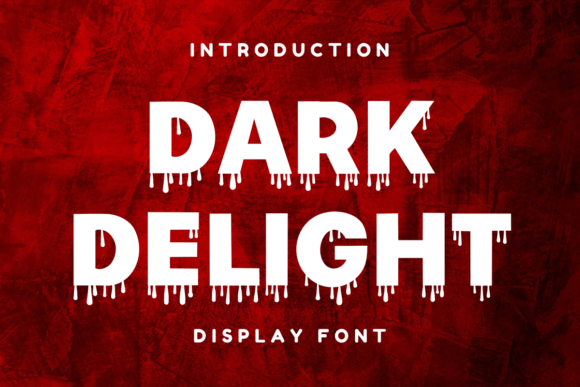
Unleashing the Spooky Charm of Dark Delight Font: Elevate Your Designs with a Touch of Darkness
The world of typography is vast and diverse, offering a multitude of fonts to suit various design needs. Among these, the Dark Delight font stands out for its unique blend of spookiness and elegance, making it a perfect choice for those looking to add a touch of darkness to their creations. In this article, we’ll delve into the characteristics of the Dark Delight font, its uses, and how it can elevate your designs, whether you’re taking notes, writing a diary, creating greeting cards, or working on more elaborate projects.
What is Dark Delight Font?
Dark Delight is a spooky display font designed to bring a sense of mystery and intrigue to your texts. Its unique design elements make it stand out from more conventional fonts, offering a fresh and distinctive look that can capture the attention of your audience. The font’s spooky charm is balanced with a certain level of elegance, making it versatile for various applications.
Exploring the Versatility of Dark Delight Font
While Dark Delight is described as a spooky display font, its uses extend far beyond just headlines or titles. Here are some creative ways to incorporate Dark Delight into your projects:
- Note-taking and Diary Writing: Add a personal touch to your notes and diary entries with the Dark Delight font. Its unique style can make personal reflections and daily logs more expressive and engaging.
- Greeting Cards: Create spooky yet charming greeting cards for Halloween, birthdays, or any occasion that calls for something out of the ordinary. The font’s distinctive look will ensure your cards stand out.
- Banners and Posters: Use Dark Delight for designing eye-catching banners and posters. Its display quality makes it perfect for titles and headings that need to grab attention.
- Merchandise: From mugs and cards to shirts and stationery, Dark Delight can add a unique flair to your merchandise designs, making them more appealing to customers.
- Social Media Posts: Elevate your social media presence with captivating posts and stories. Dark Delight can help you create engaging content that stands out in crowded feeds.
Tips for Using Dark Delight Font Effectively
To maximize the impact of the Dark Delight font in your designs, consider the following tips:
- Mix with Other Fonts: Combine Dark Delight with complementary fonts to create visual interest. A pairing with a clean, sans-serif font can balance its ornate style.
- Adjust Size and Color: Experiment with different sizes and colors to ensure the font fits your design’s mood and hierarchy. Dark Delight can be powerful in large sizes or subtle in smaller applications.
- Consider the Background: The font’s impact can be significantly enhanced by choosing the right background. Dark backgrounds can amplify its spooky effect, while light backgrounds can offer a more subtle hint of mystery.
Finding Inspiration with Dark Delight Font
When working with a unique font like Dark Delight, inspiration can strike from various sources. Here are a few ideas to get you started:
- Halloween and Spooky Themes: Naturally, designs around Halloween or spooky themes are a great fit. Think horror movie posters, haunted house invitations, or witchy recipe cards.
- Gothic and Vintage Aesthetics: Projects that lean towards gothic or vintage styles can also benefit from Dark Delight. Consider wedding invitations, logo designs, or packaging with a vintage or gothic twist.
- Creativity and Imagination: Beyond specific themes, Dark Delight can inspire creativity and imagination. Use it in storytelling, educational materials, or any project that benefits from a touch of whimsy and mystery.
The Dark Delight font offers a unique blend of spookiness and elegance, making it a versatile tool for designers and hobbyists alike. Whether you’re creating personal projects, professional designs, or simply looking for a font that adds a touch of mystery and intrigue, Dark Delight is an excellent choice. Its wide range of applications, from practical uses like note-taking and diary writing to more creative endeavors like banner design and merchandise, ensures that this font can find a home in various projects.
By embracing the distinctive charm of Dark Delight, you can elevate your designs, capture the imagination of your audience, and create memorable pieces that stand out in a sea of more conventional typography. So, don’t hesitate to experiment with Dark Delight font in your next project and discover the unique touch of darkness it can bring to your creations.